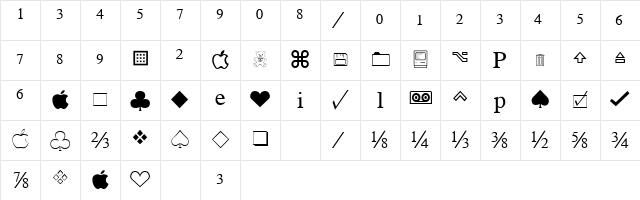
Complete ApplePi. fog glyph index. Displaying only characters natively supported by ApplePi. fog font.
ApplePi. is a composed and adaptable typeface that performs quietly and consistently across a wide range of design contexts.